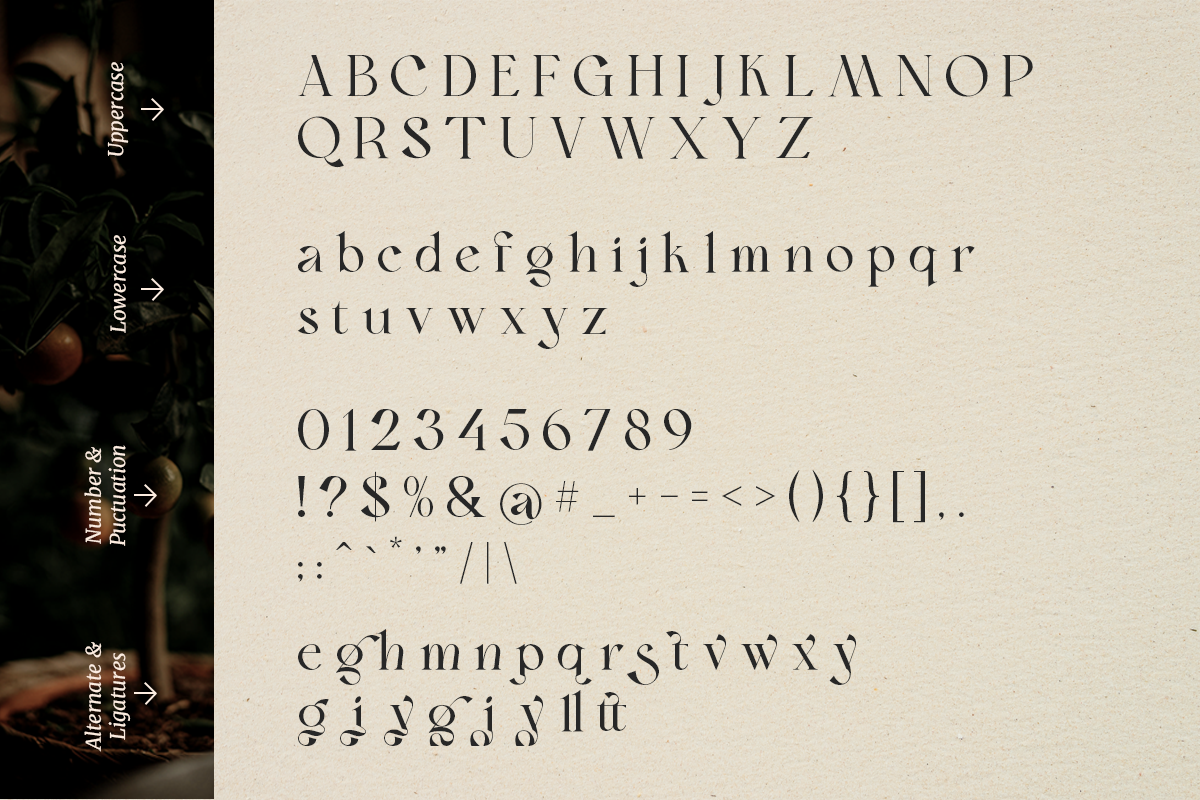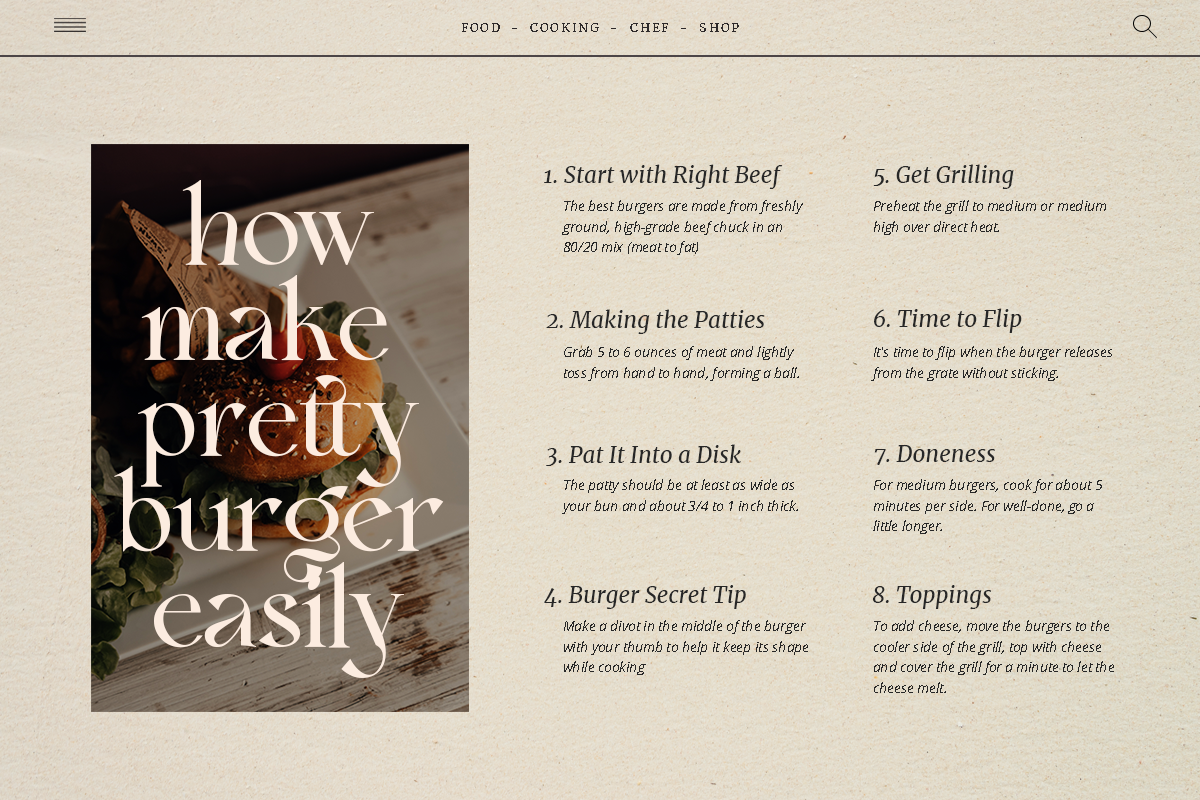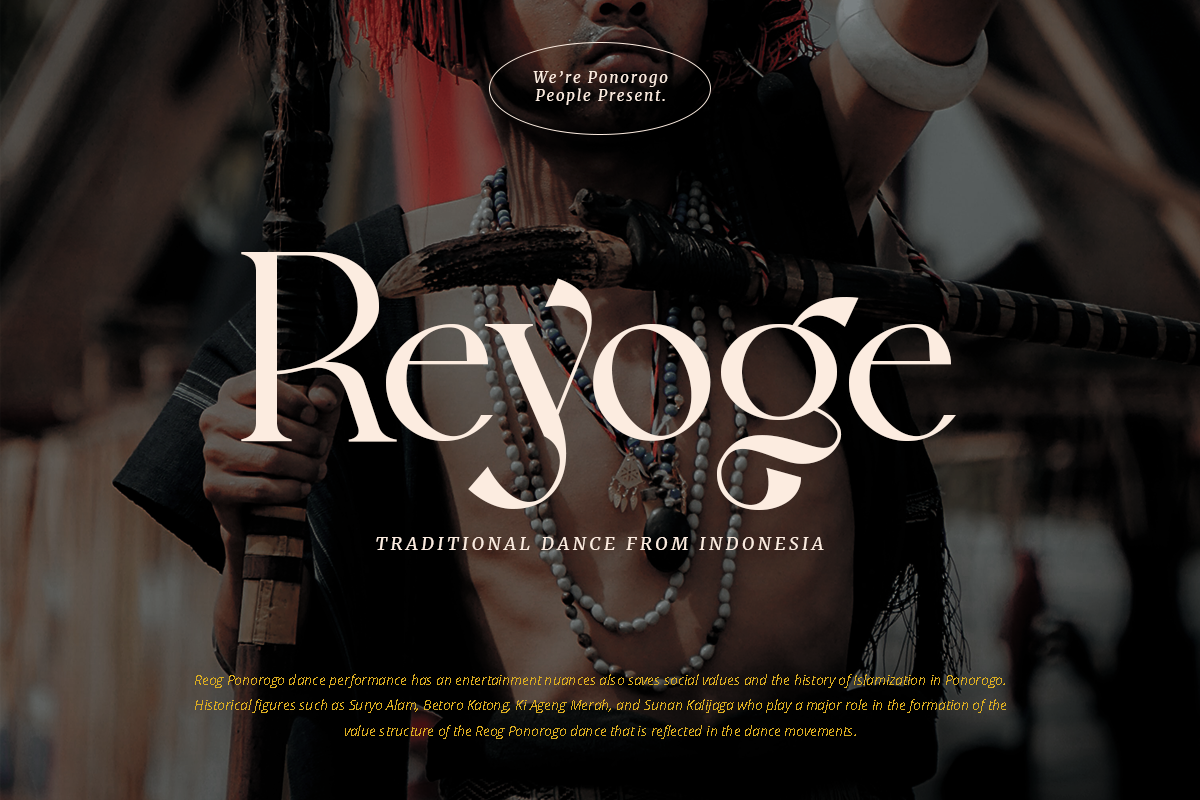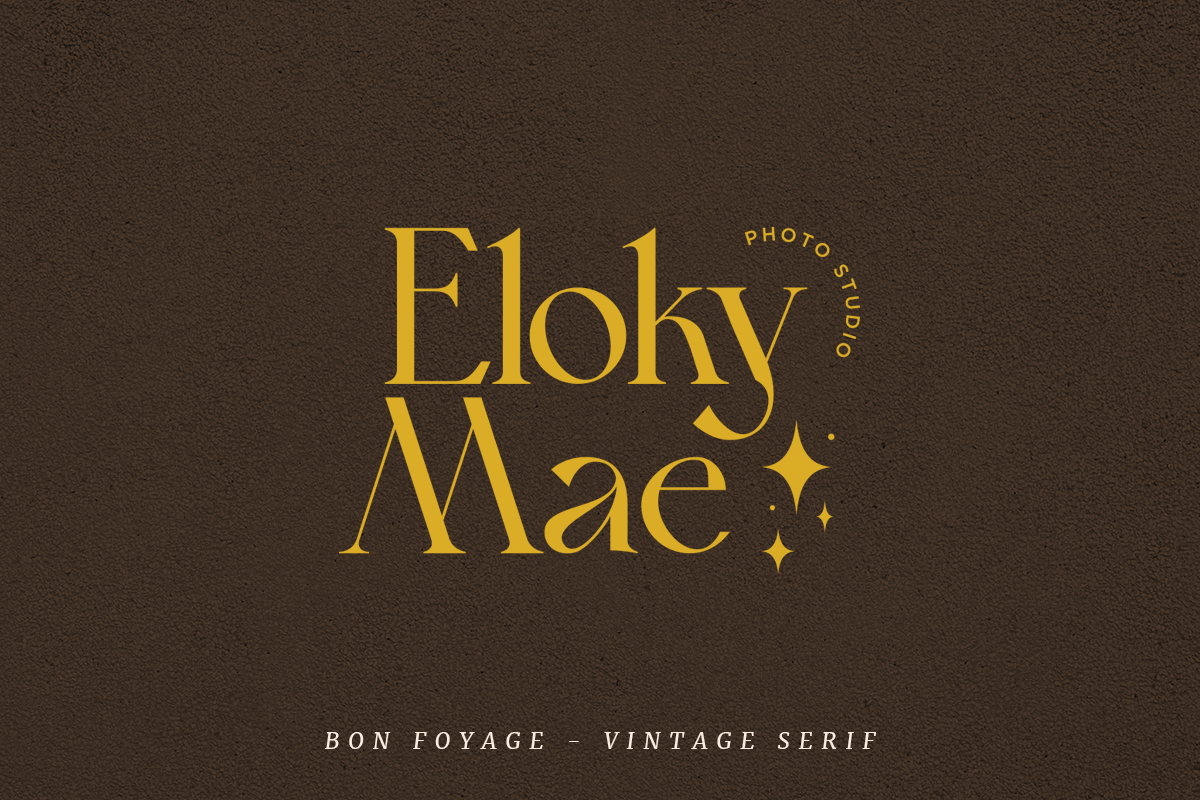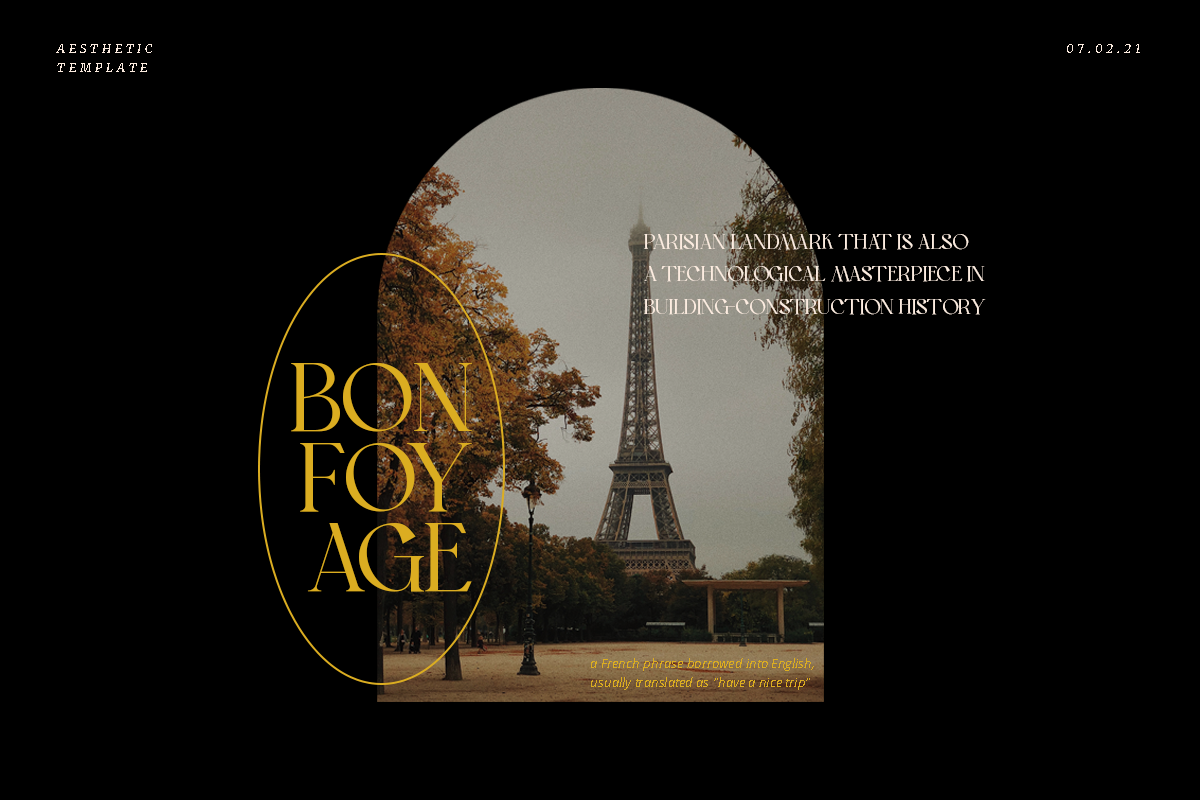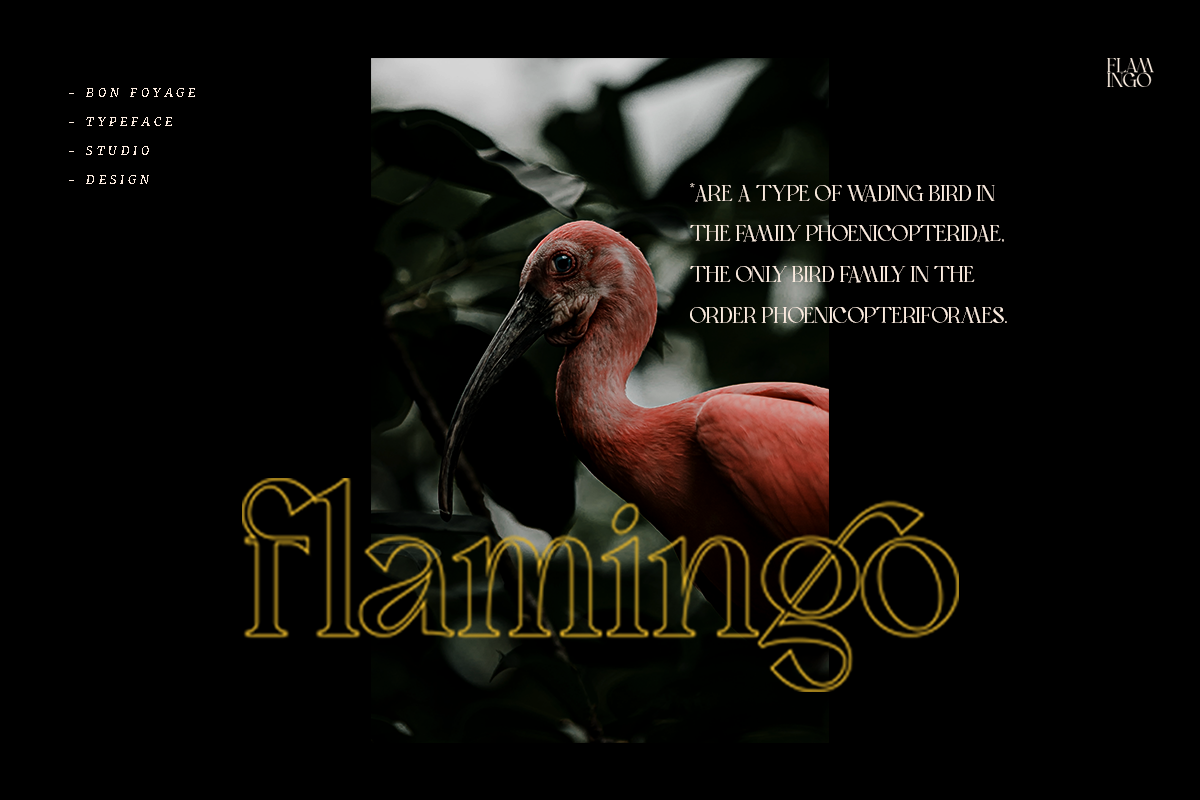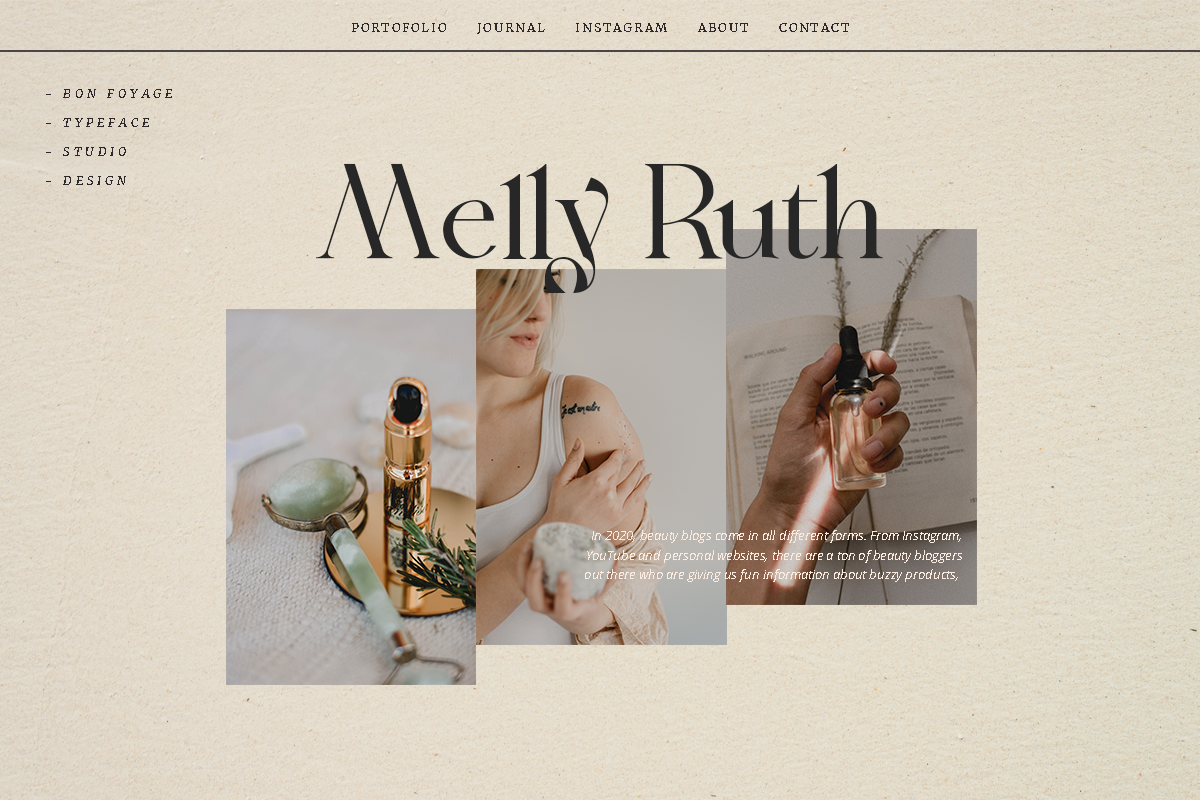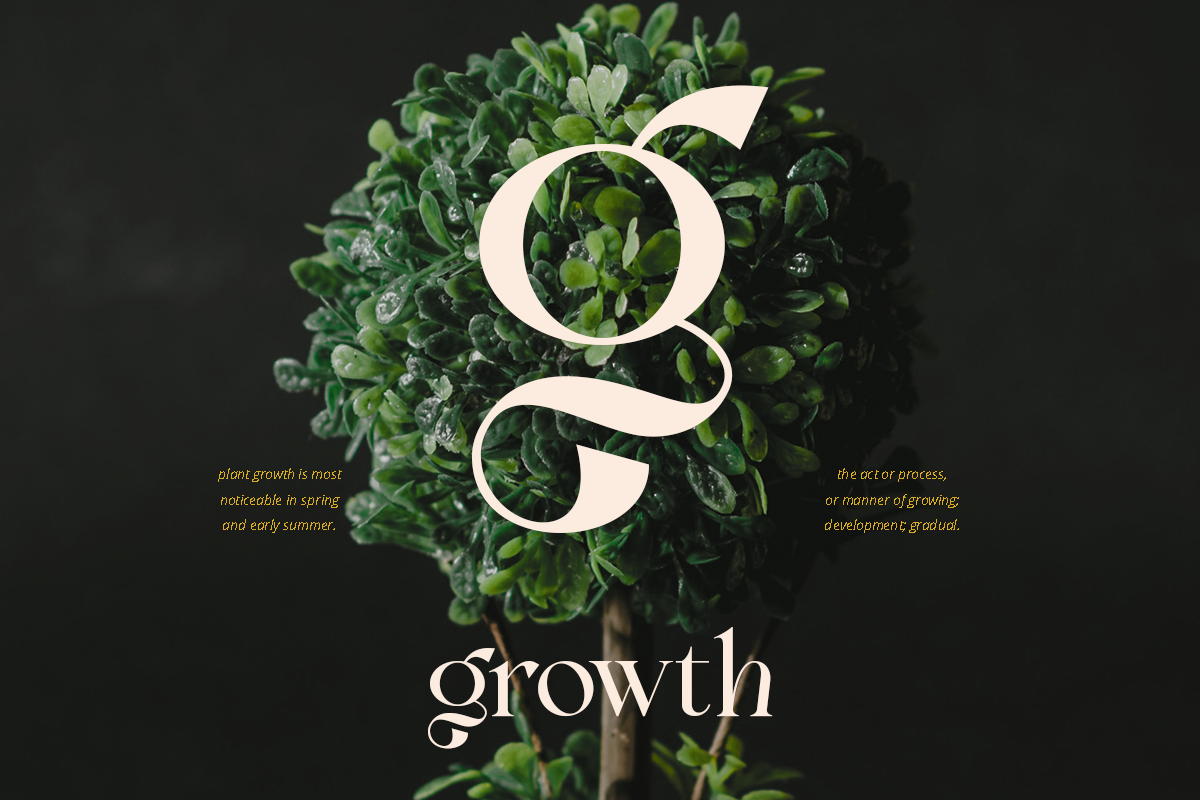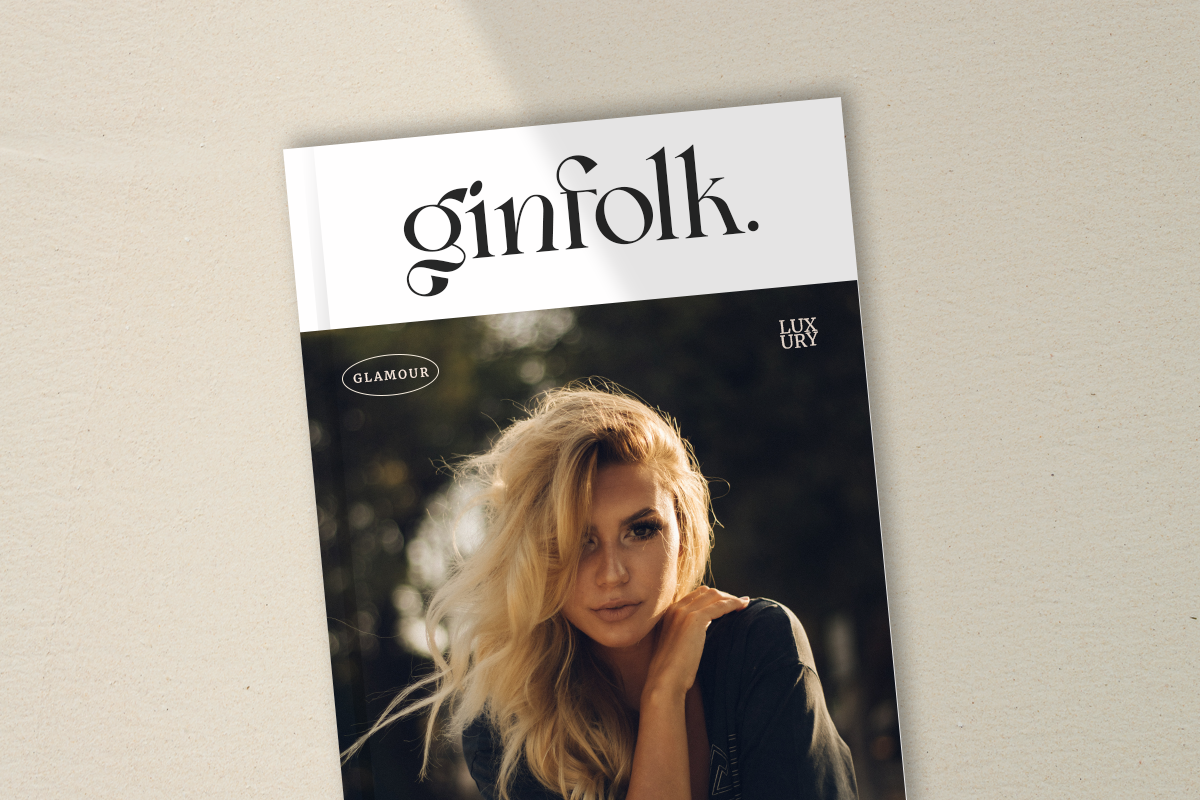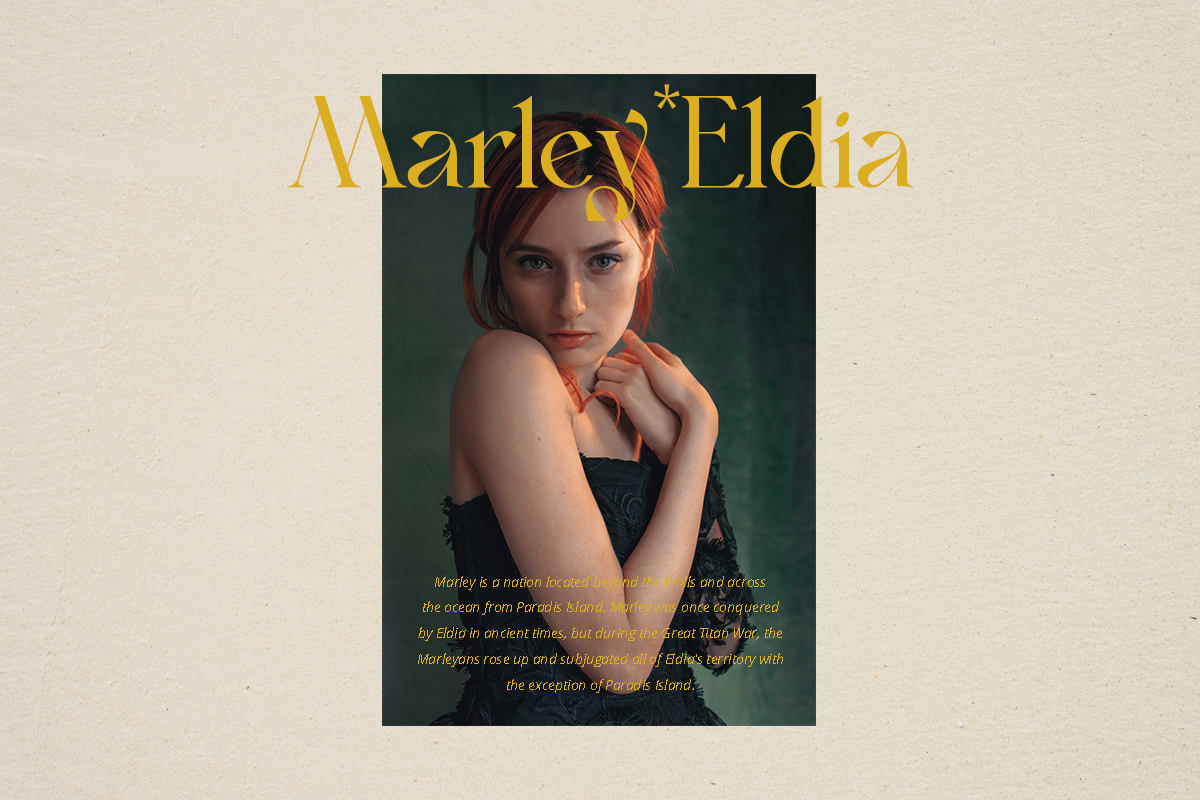
Bon Foyage - Vintage Modern Serif
Bon Foyage is a Vintage modern serif typeface with unique letterforms, beautiful alternative glyphs, and complete multilingual support. Every letter has a subtle uniqueness to it, from the alternate letterforms of "g, j, y", these glyphs are memorable!
This font is perfect for editorial projects, logo design, clothing branding, product packaging, magazine headers, or simply as a stylish text overlay to any background image.
Unique letterforms